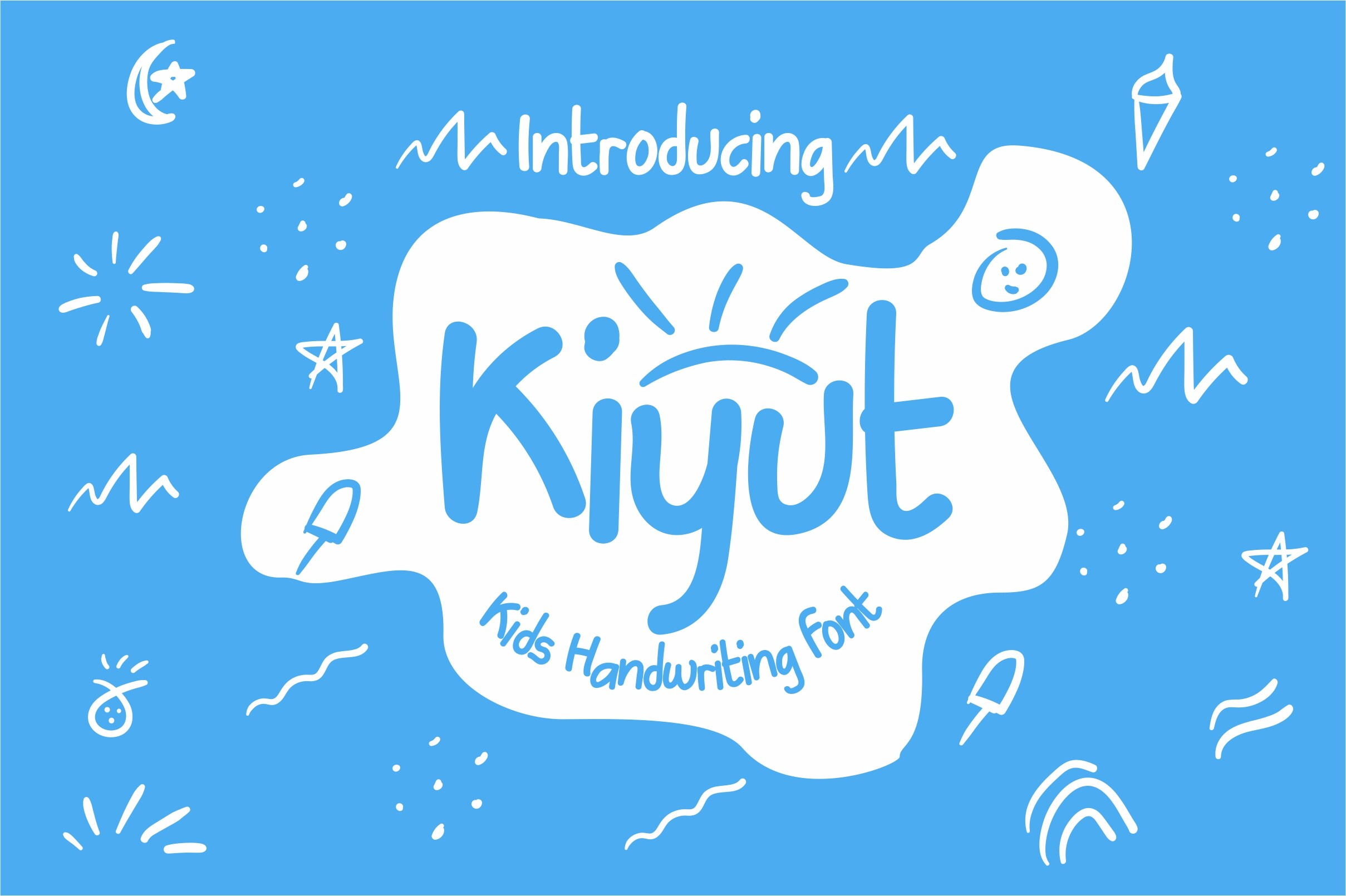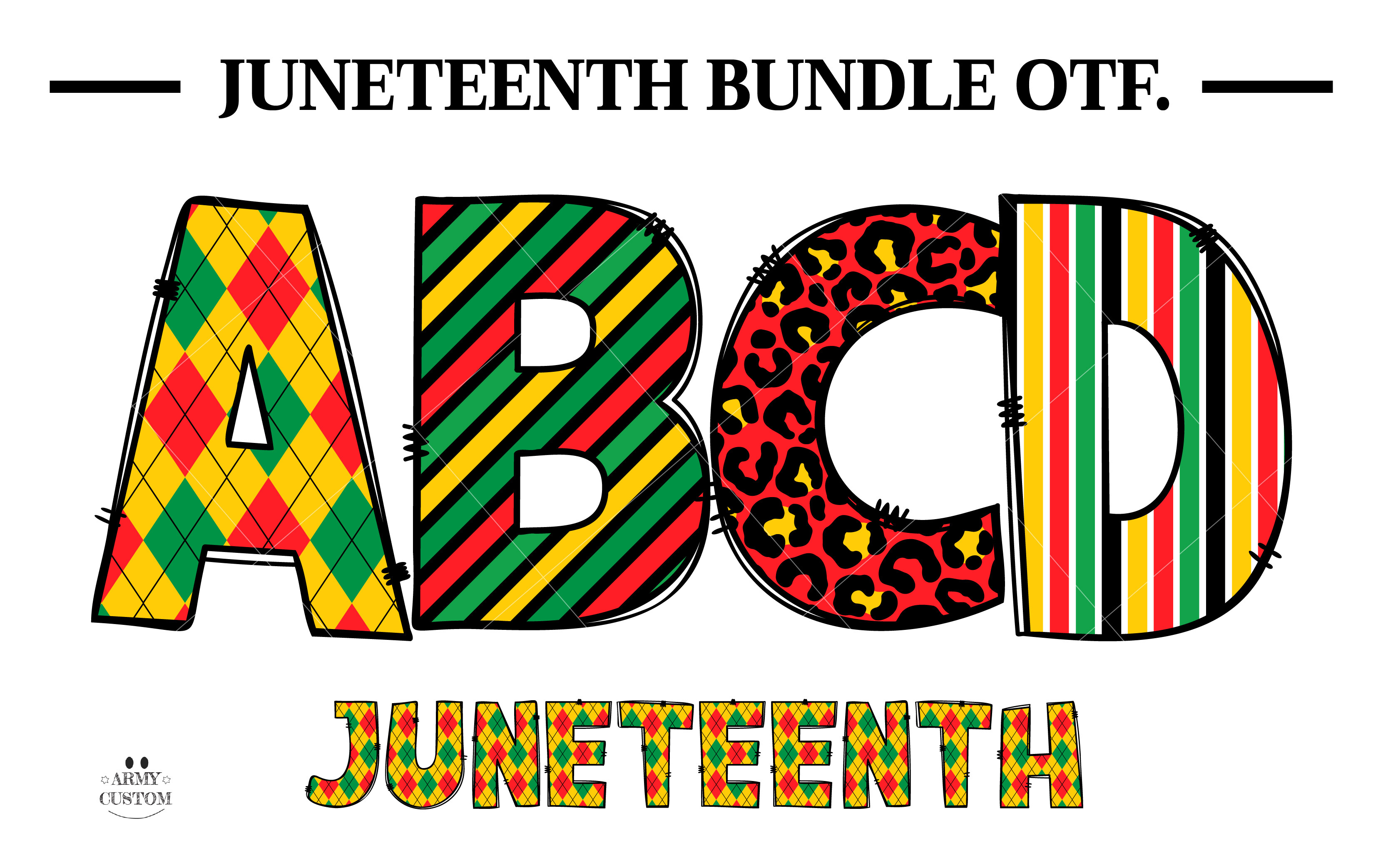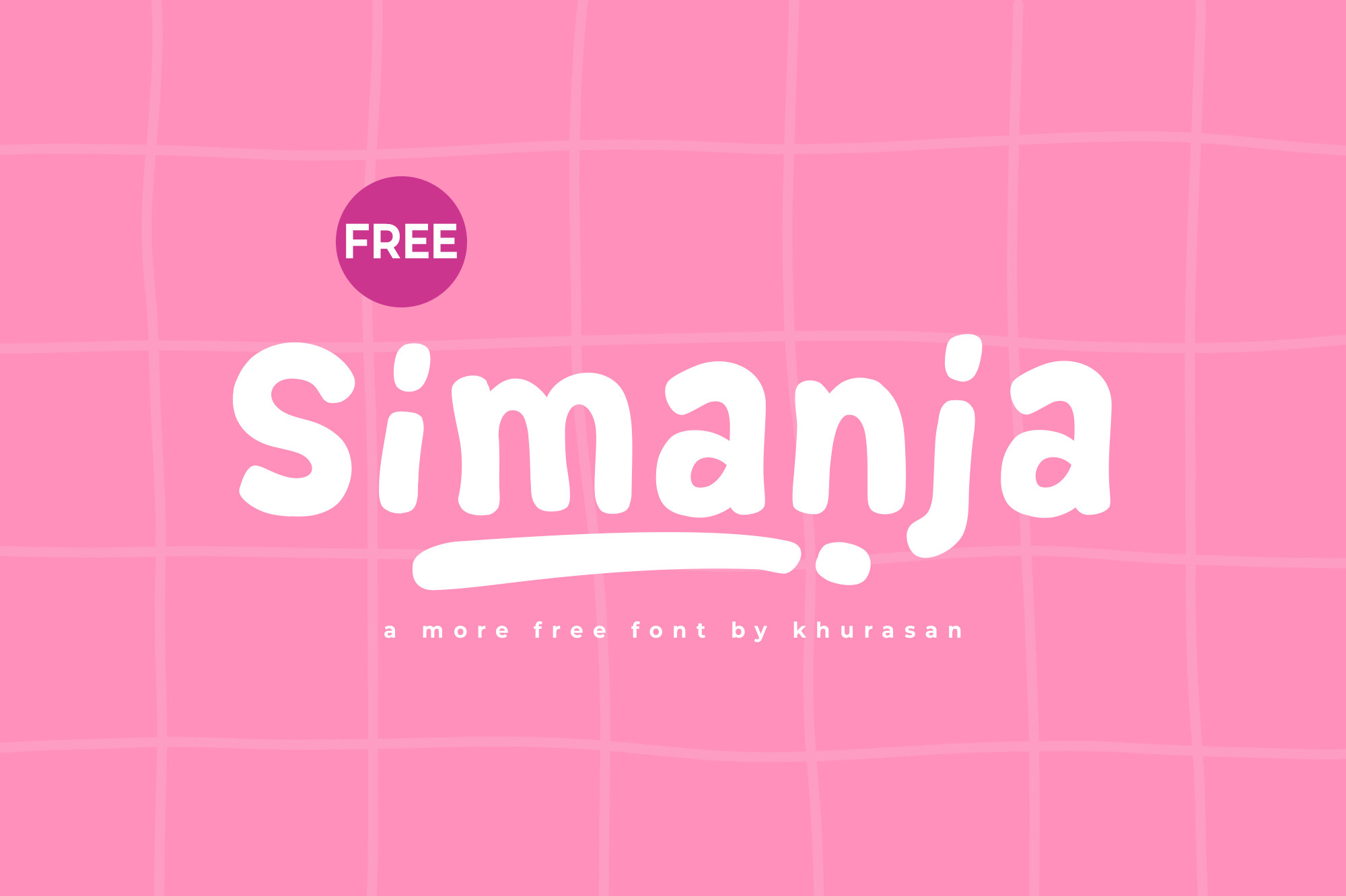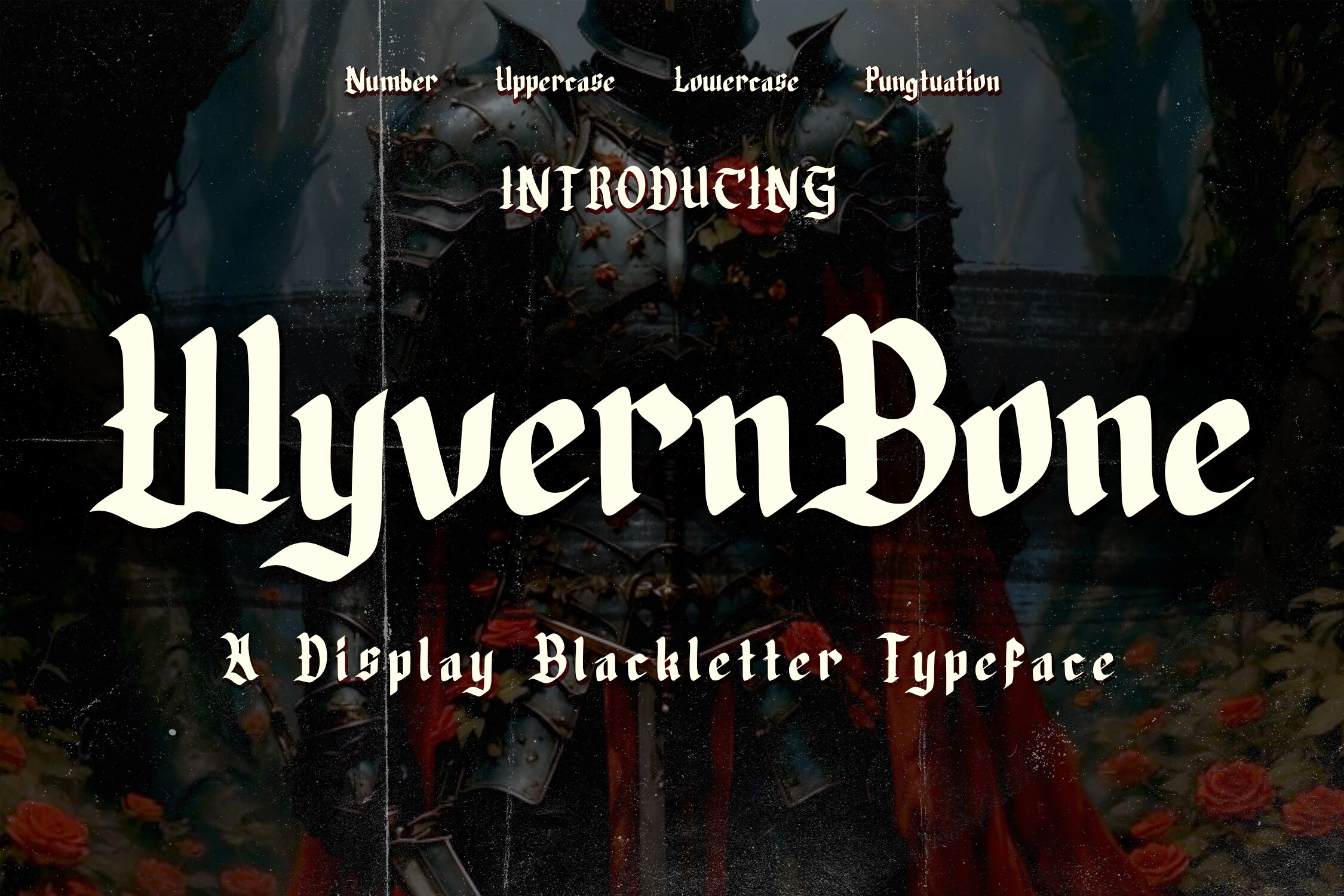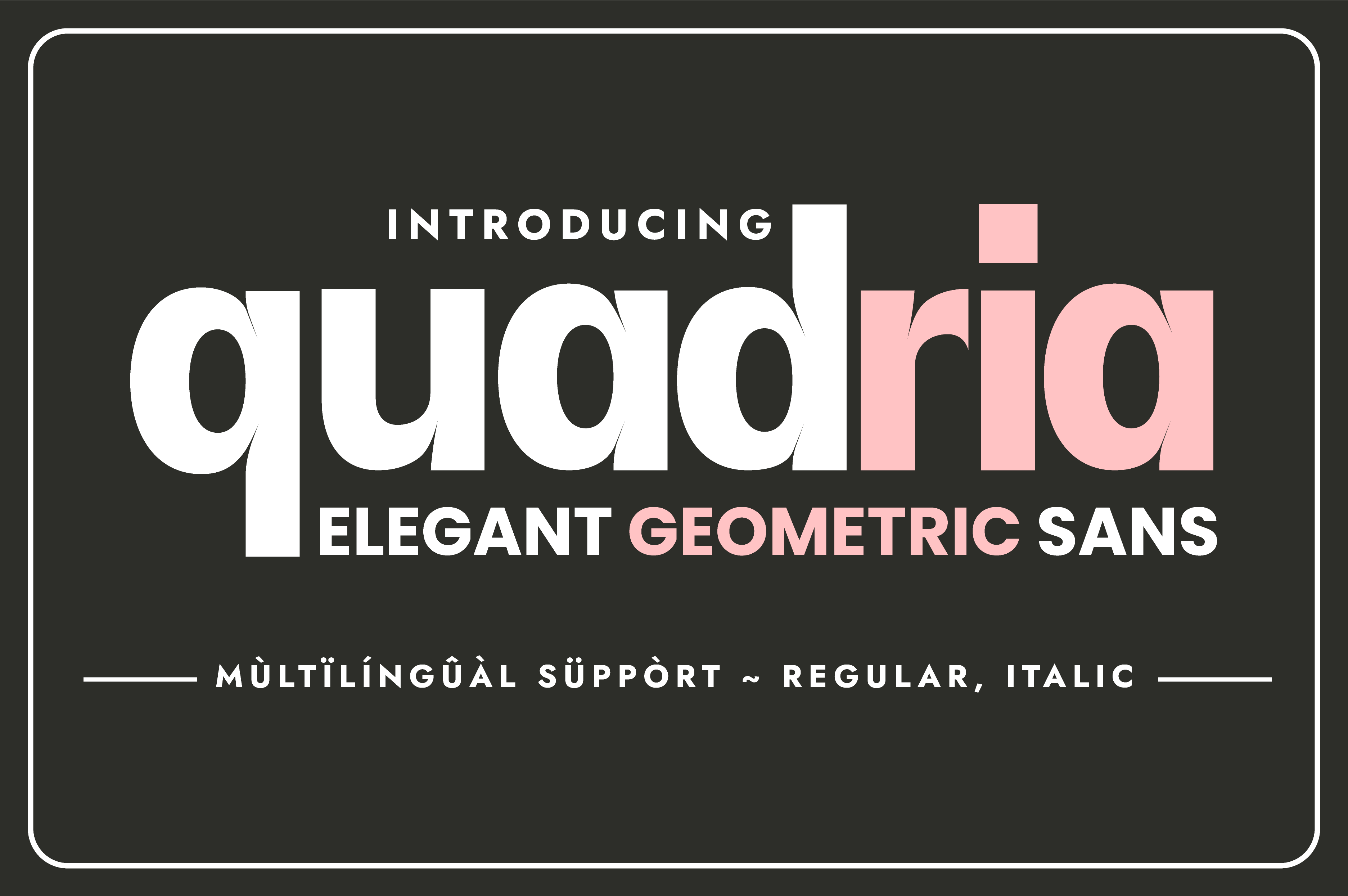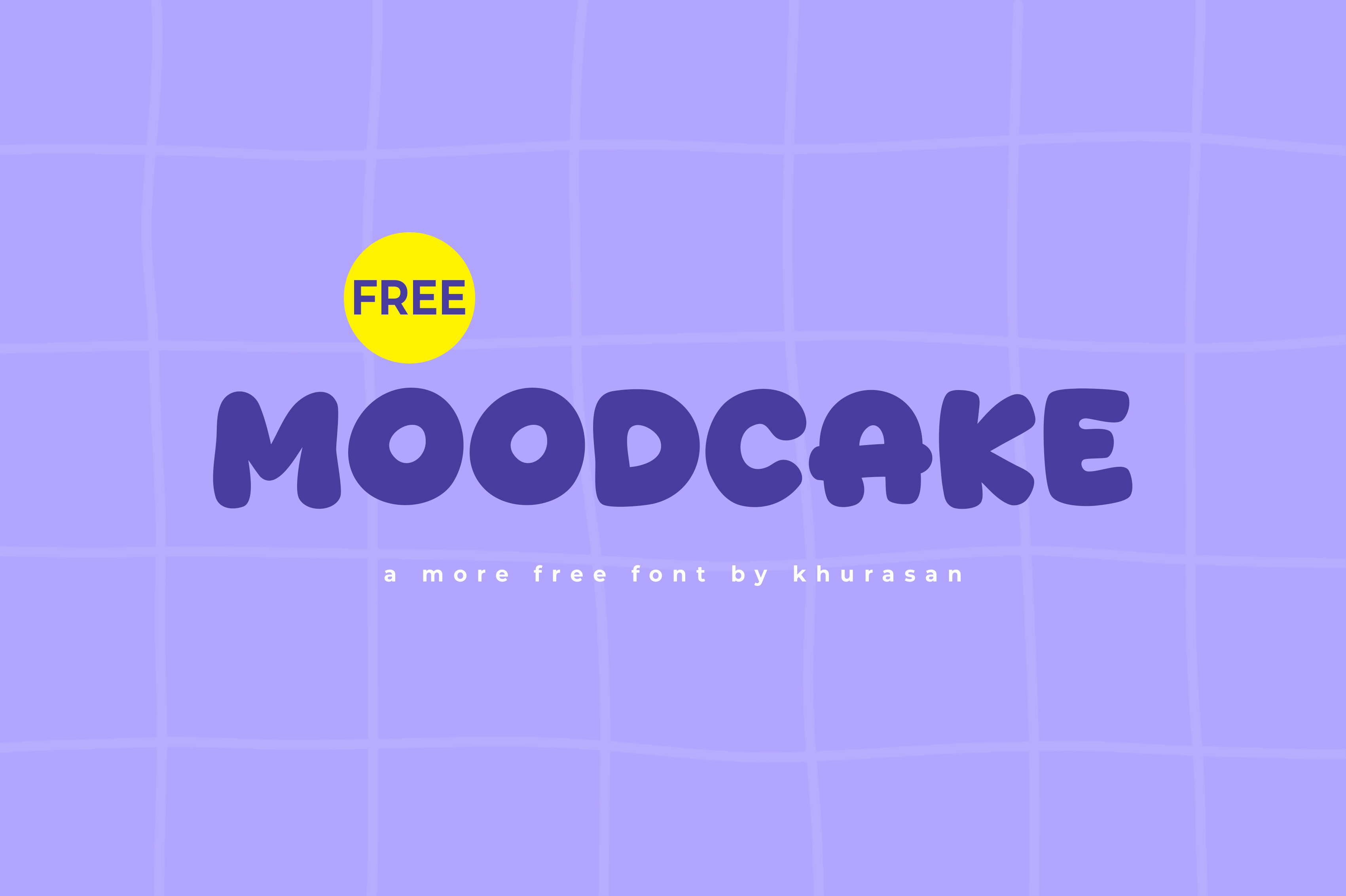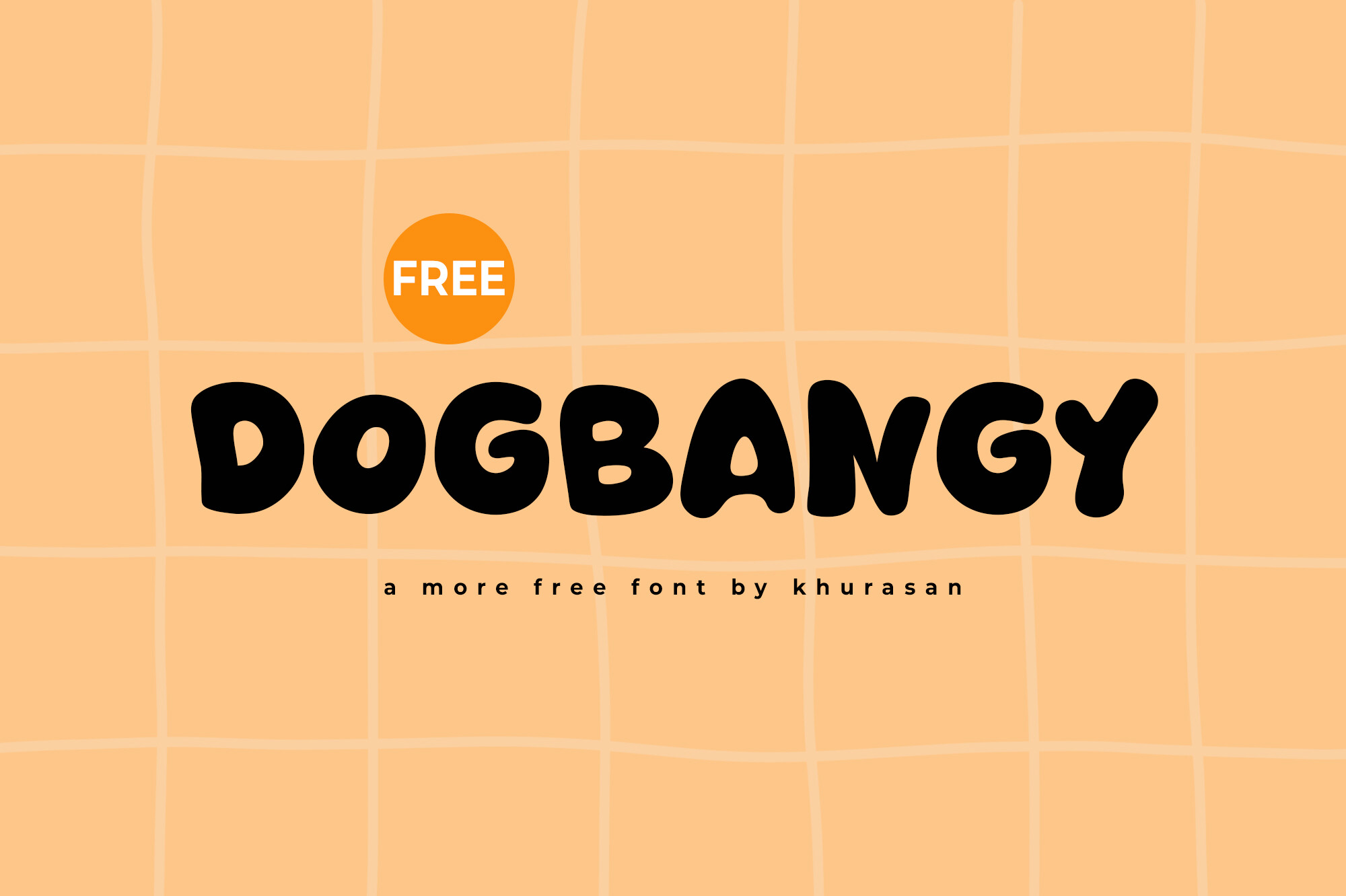
This week, we present an exciting selection of free fonts available for commercial use, perfect for enhancing your creative projects. Whether you're designing for children's themes, branding, or festive celebrations, these fonts offer unique styles to elevate your designs. Explore the charming Kiyut, the warm Strawberries, the powerful Juneteenth, and the modern Simanja, among others. Each font comes with its own distinct personality, allowing you to express your creativity and make your work stand out. Dive into this collection and discover how these remarkable typefaces can breathe life into your projects!
Kiyut
Kiyut is an irresistibly charming font designed with children's projects in mind. Its playful, rounded letters exude a whimsical, hand-drawn quality that adds a delightful touch to storybooks, birthday invitations, and educational materials. This font is not only cute but also versatile, perfect for any design aiming to evoke joy and creativity. Whether it's for snack packaging or posters, Kiyut brings a friendly and cheerful vibe, ensuring your work stands out with its unique charm. Embrace the playful spirit of Kiyut and bring smiles to every project!
Strawberries
Strawberries is a delightful handwritten font that strikes a perfect balance between a bold presence and a warm, personal touch. This unique typeface is ideal for various projects, from branding and packaging to social media graphics and print materials. Its distinctive style conveys authenticity and charm, making it an exceptional choice for designers who want to create a friendly yet professional aesthetic. Stand out in a crowded marketplace with the inviting appeal of Strawberries, and let your creativity flourish with this engaging font.
Juneteenth
Juneteenth is a powerful typeface that pays tribute to a significant moment in African American history. This font embodies the essence of 'Freedom Day,' celebrating resilience and triumph over adversity. With its bold strokes and expressive nuances, Juneteenth serves as an inspiring tool for storytelling, making it perfect for projects that aim to evoke emotion and reflection. Whether used in educational materials, commemorative events, or artistic expressions, this font connects deeply with its audience, adding depth and meaning to any design. The black version is compatible with popular design software, ensuring versatility for creative projects.
Simanja
Simanja is a modern display font that effortlessly combines cuteness with versatility. Whether you're creating posters, logos, or magazine layouts, this font shines in a variety of design scenarios. Its charming character makes it easy to pair with other typefaces, enhancing the overall aesthetic of your projects. Perfect for book covers and promotional materials, Simanja allows your creativity to flow freely, ensuring that each design stands out with its delightful style. Explore Simanja and discover how it can elevate your design work to the next level.
Wyvern Bone
Wyvern Bone invites you into a realm of medieval intrigue with its striking blackletter design. Inspired by ancient manuscripts and fantasy lore, this commanding font features sharp gothic strokes that make it ideal for epic titles, game designs, or dark-themed branding. The dramatic presence of Wyvern Bone infuses your projects with historical weight, ensuring that every word carries a sense of grandeur. Whether you're crafting a fantasy novel cover or designing artwork for a metal album, this font adds an authentic touch that resonates deeply with its audience.
Quadria
Quadria is a stunning sans serif font that embodies modern sophistication and minimalistic style. It transforms ordinary designs into visual masterpieces with its clean lines and geometric precision. Perfect for contemporary websites, sleek magazine layouts, and elegant branding, Quadria is versatile enough to enhance any project, from signage to product packaging. Its ability to elevate brand identities makes it a must-have for designers looking to make a lasting impression. Unlock a world of design possibilities with Quadria and watch your creations soar to new heights!
Moodcake
Moodcake is a delightful display font that perfectly blends modern charm with versatility. This font is an excellent choice for various design projects, including posters, logos, and magazine covers. Its inviting presence makes it easy to integrate with other design elements, ensuring your creative ideas stand out. With Moodcake, you can craft visually appealing designs that resonate with your audience. Unleash your imagination and elevate your projects with the playful allure of Moodcake, making every design a captivating experience.
Howdybun
Howdybun is a charming display font that adds a touch of whimsy to any design project. Its playful character makes it perfect for posters, logos, and banners, allowing your creativity to shine through. This font is easily adaptable, making it suitable for a wide range of applications, from children's book covers to festive invitations. With Howdybun, you can create delightful designs that resonate with your audience and evoke a sense of joy. Embrace the fun and creativity of Howdybun and let your imagination run wild with every project.
Dogbangy
Dogbangy is a captivating display font that's perfect for a variety of creative projects. With its playful design, this font is well-suited for posters, logos, and magazine covers, allowing your unique style to shine. Its versatility enables you to incorporate it into numerous applications, from children's book illustrations to eye-catching banners. Bring your ideas to life with Dogbangy and watch your designs come alive with character and charm. Embrace the fun spirit of Dogbangy and let it enhance your creative journey.